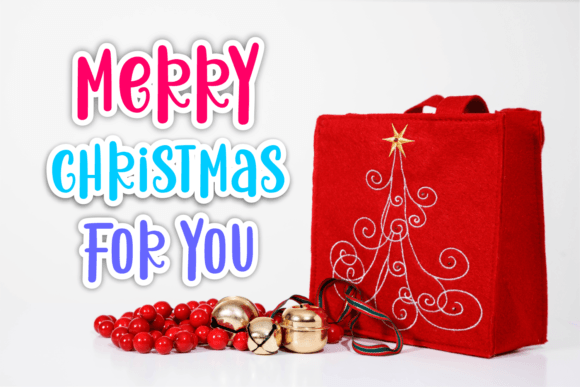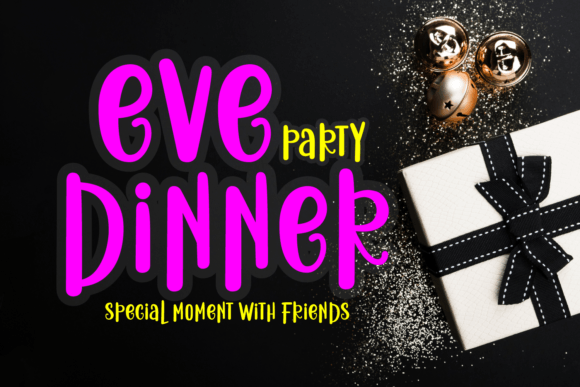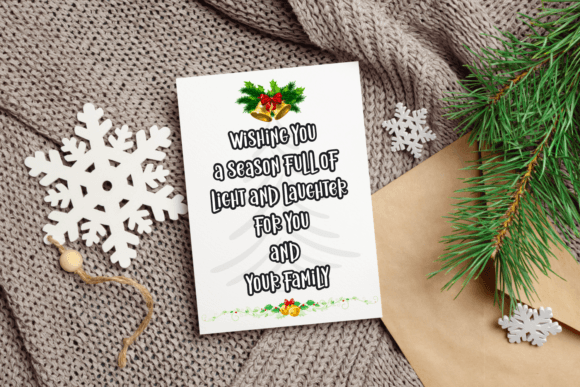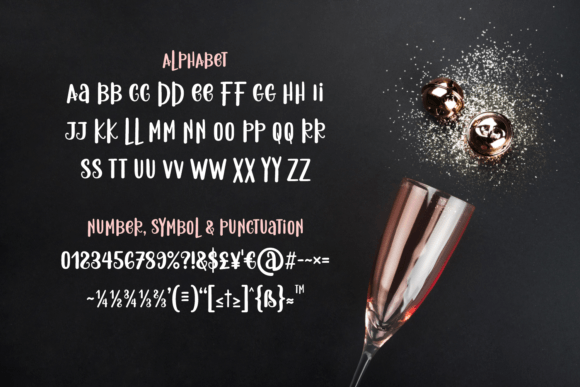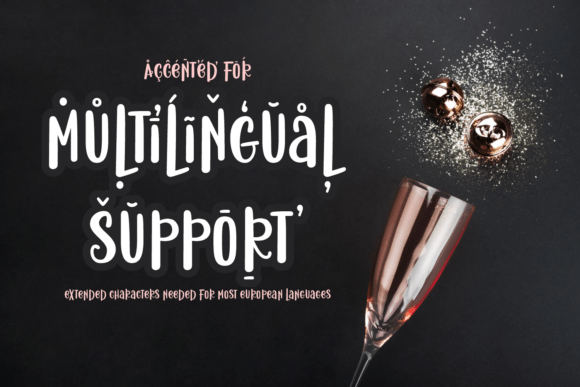
The Magic of the Holiday Season in Type
It’s that time of the year when the air is filled with the scent of pine and the sound of carolers singing their hearts out. As you sit down to create your holiday projects, you want to infuse them with the same magic and wonder that the season brings. That’s where the Jingle Christmas Font comes in – a delightful handwritten font that captures the essence of the festive season.
Designed to add a dash of holiday cheer to your designs, this whimsical font is perfect for greeting cards, decorations, and any other project that needs a touch of festive fun. Whether you’re a seasoned designer or a DIY enthusiast, the Jingle Christmas Font is a valuable addition to your toolkit, helping you create projects that are both beautiful and meaningful.
Jingle Christmas Font Key Features
- Unique Characteristics: Jingle Christmas Font features a distinctive, hand-drawn style with intricate details and ornaments, making it perfect for festive designs and holiday-themed projects.
Jingle Christmas Font Review
I recently had the chance to play with the Jingle Christmas Font, and I must say, it’s a mixed bag.
- ✨ The font has a unique and festive feel to it, perfect for holiday-themed designs.
- ✨ The bold and italic styles add a nice touch, making it versatile for various design applications.
- ✨ The font is well-designed and easy to read, even at smaller sizes.
- ⚠️ The font’s aesthetic may be too loud or overpowering for more subdued designs.
- ⚠️ The font is limited in its character set, which may not be ideal for longer texts or complex designs.
- ⚠️ The font’s spacing and kerning could be improved, particularly in certain combinations of letters.
The Jingle Christmas Font is a solid choice for holiday-themed designs, but it may not be the best fit for every project. If you’re looking for a fun and festive font, this one delivers. However, if you need a more versatile or subtle font, you may want to consider other options.
Practical Application Guide for “Jingle Christmas Font”
Use the “Jingle Christmas Font” to create festive holiday designs, such as:
– Holiday greeting cards
– Party invitations
– Gift tags and labels
Remember to experiment with different font sizes, colors, and styles to get the most out of this festive font.
Alternatives to Jingle Christmas Font
Great Vibes is a modern, elegant script font that can be used for Christmas designs. It has a unique and flowing style that works well for headings and titles. Great Vibes is a good alternative to Jingle Christmas Font when you want a more sophisticated and refined look.
Comparison to Jingle Christmas Font: Great Vibes has a more refined and elegant style compared to Jingle Christmas Font, which is more playful and festive.
Carolyna Pro is a beautiful, hand-drawn script font that is perfect for Christmas designs. It has a classic and timeless feel that works well for invitations, cards, and packaging. Carolyna Pro is a good alternative to Jingle Christmas Font when you want a more traditional and elegant look.
Comparison to Jingle Christmas Font: Carolyna Pro has a more classic and timeless feel compared to Jingle Christmas Font, which is more modern and playful.